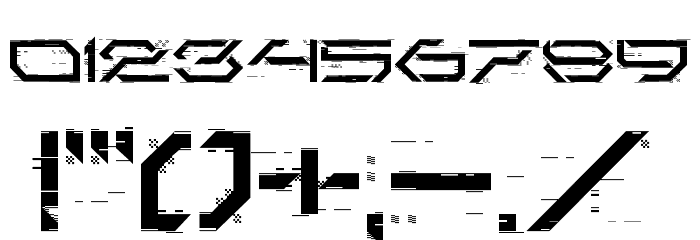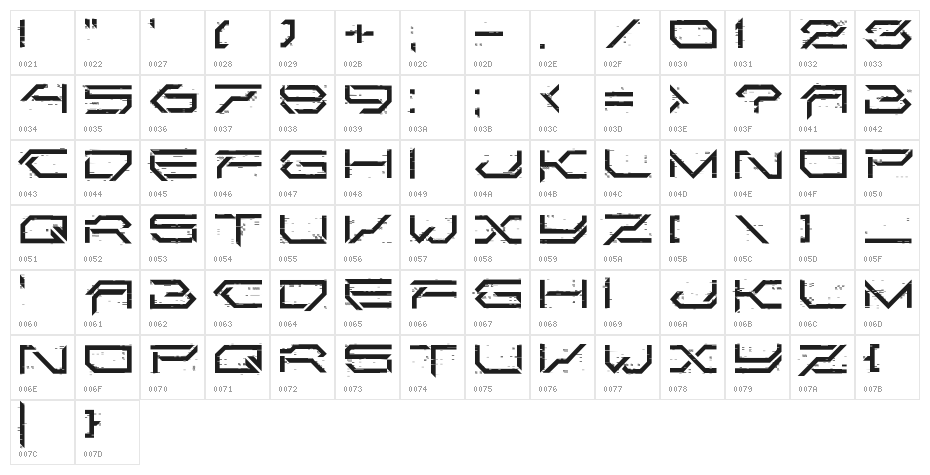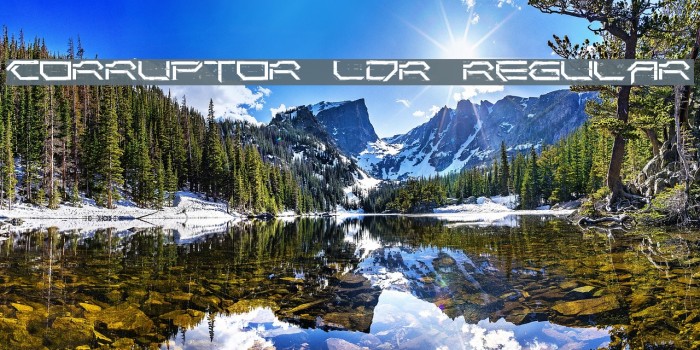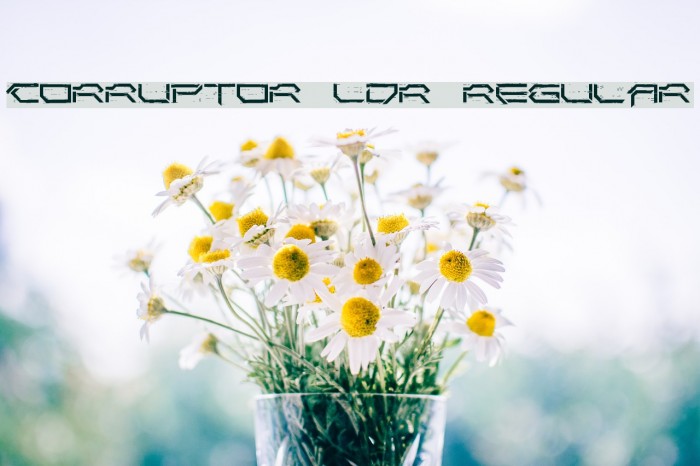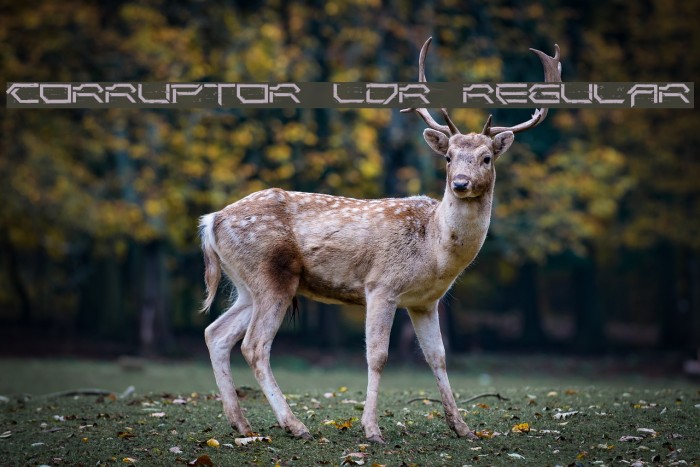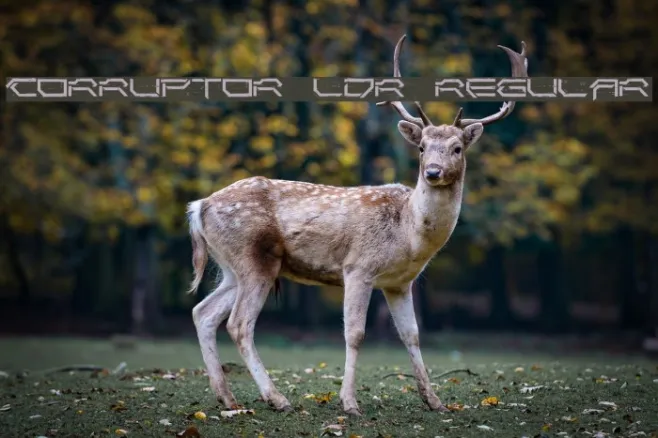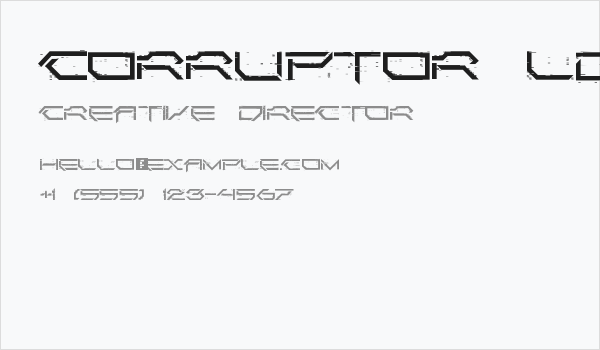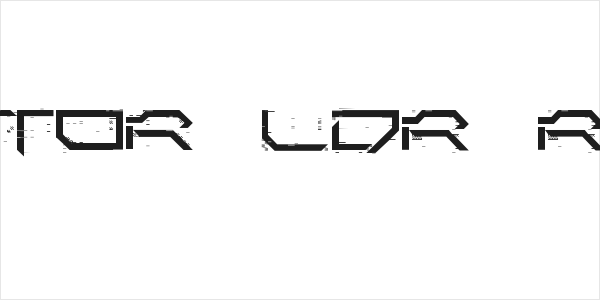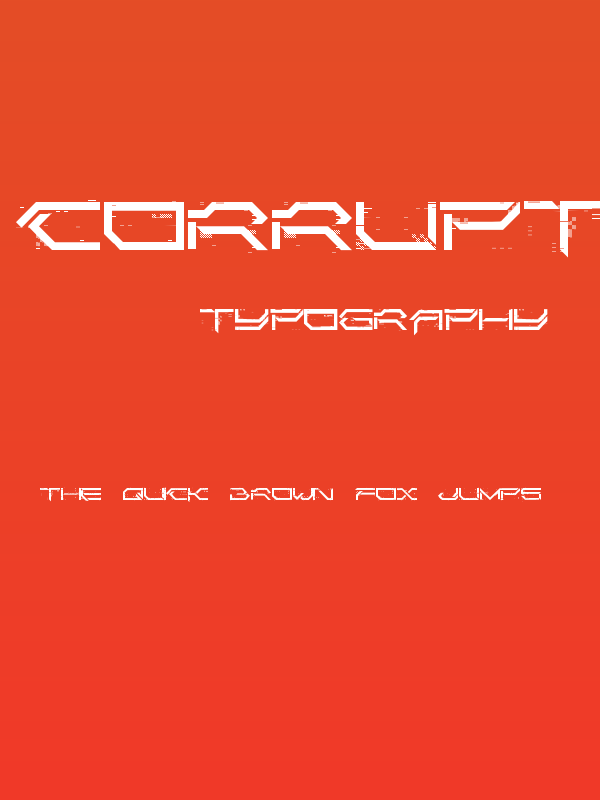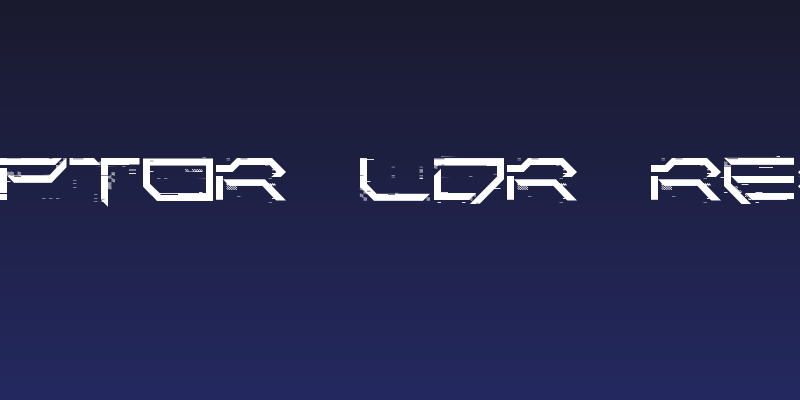
Corruptor LDR Regular Font
Corruptor LDR Regular Description
This font features a futuristic and digital aesthetic, characterized by its angular and geometric letterforms. The design incorporates a distressed, glitch-like effect, giving it a unique, tech-inspired appearance. The uppercase and lowercase letters maintain a consistent style, with sharp edges and a slightly condensed form. Numbers and special characters follow the same design principles, ensuring uniformity across all glyphs. The overall look is bold and striking, making it ideal for projects that require a modern and edgy feel.
| Proposed Projects | Ideal for tech-themed designs, video game graphics, sci-fi movie posters, and digital art projects. |